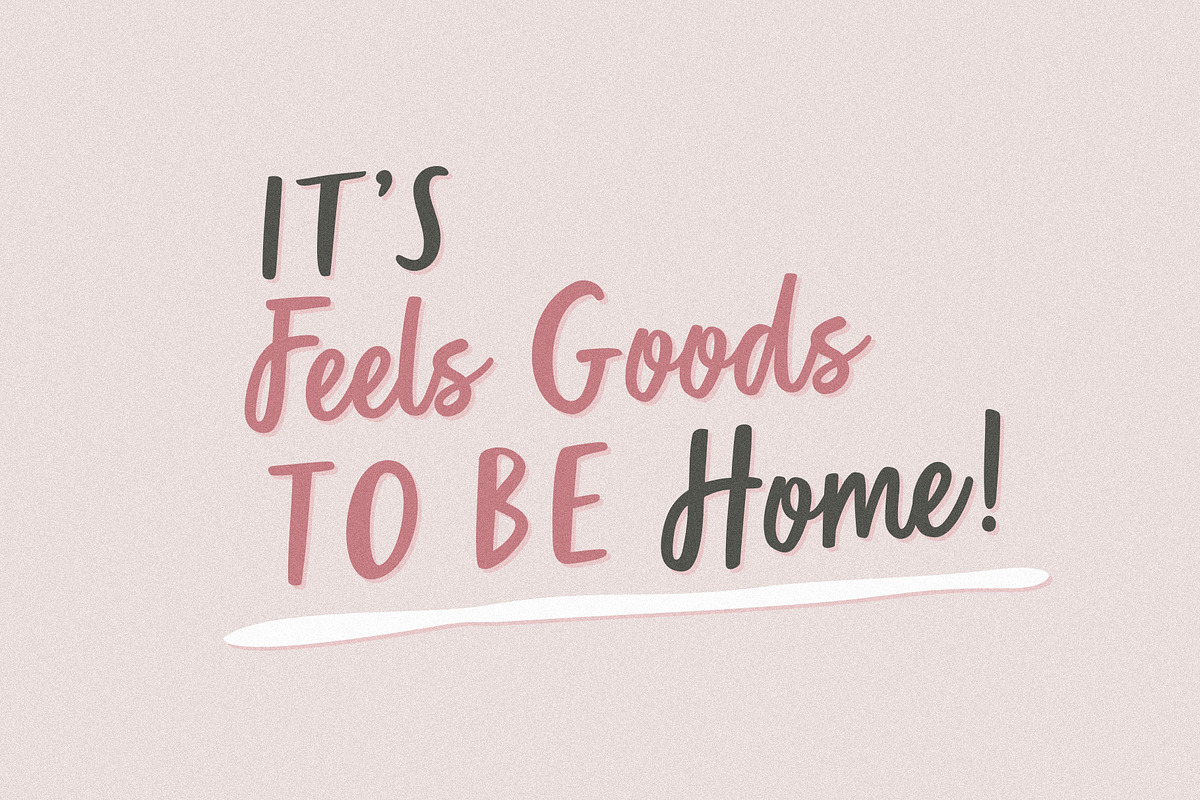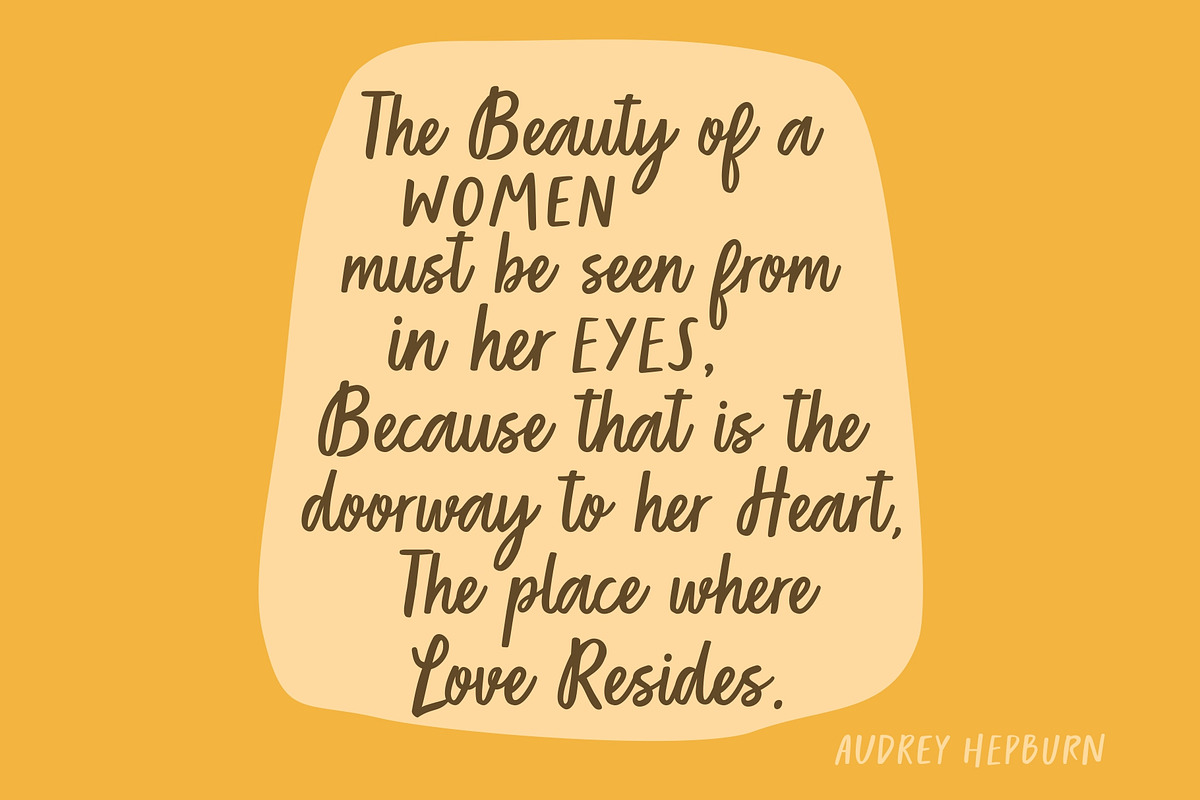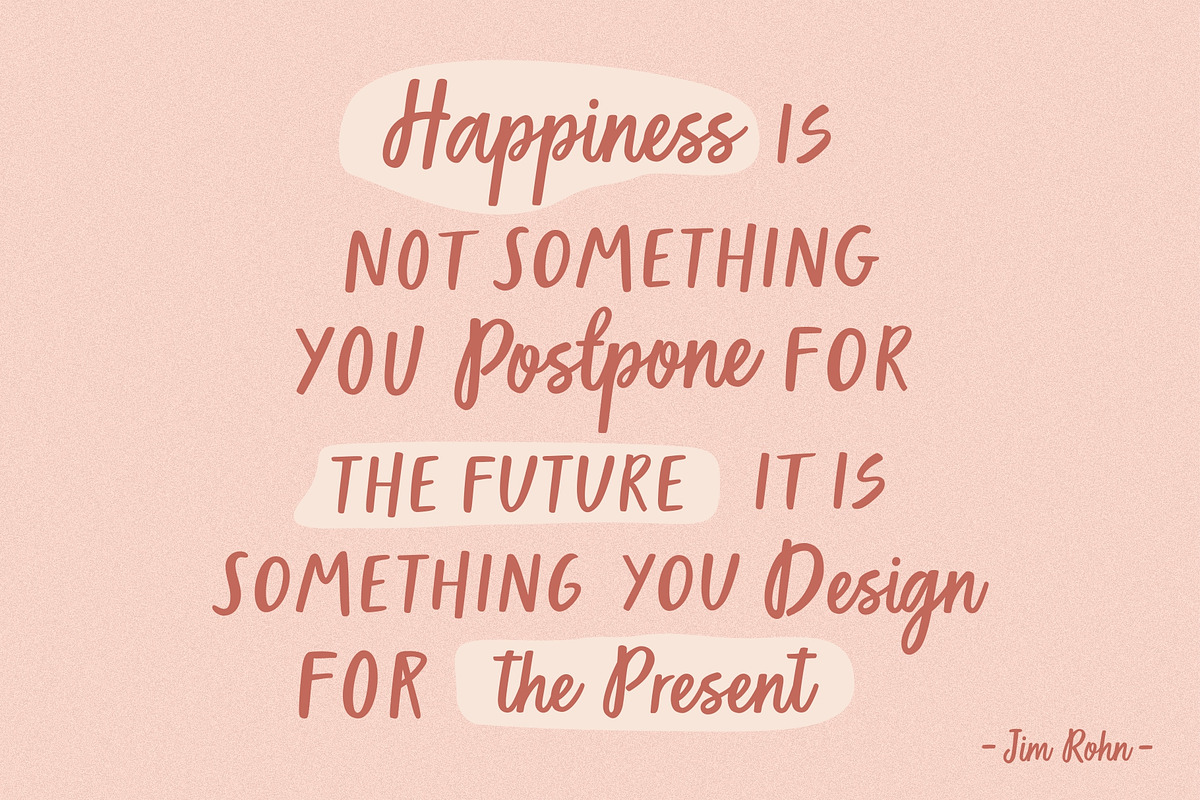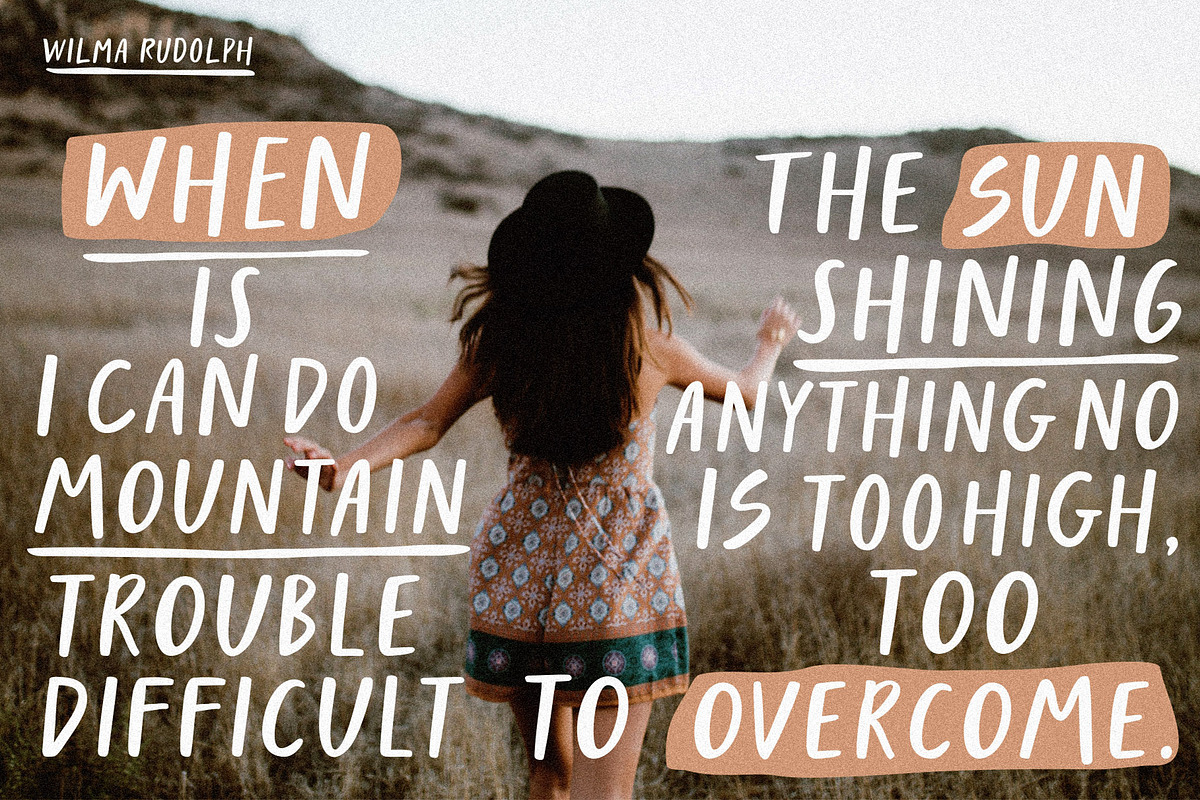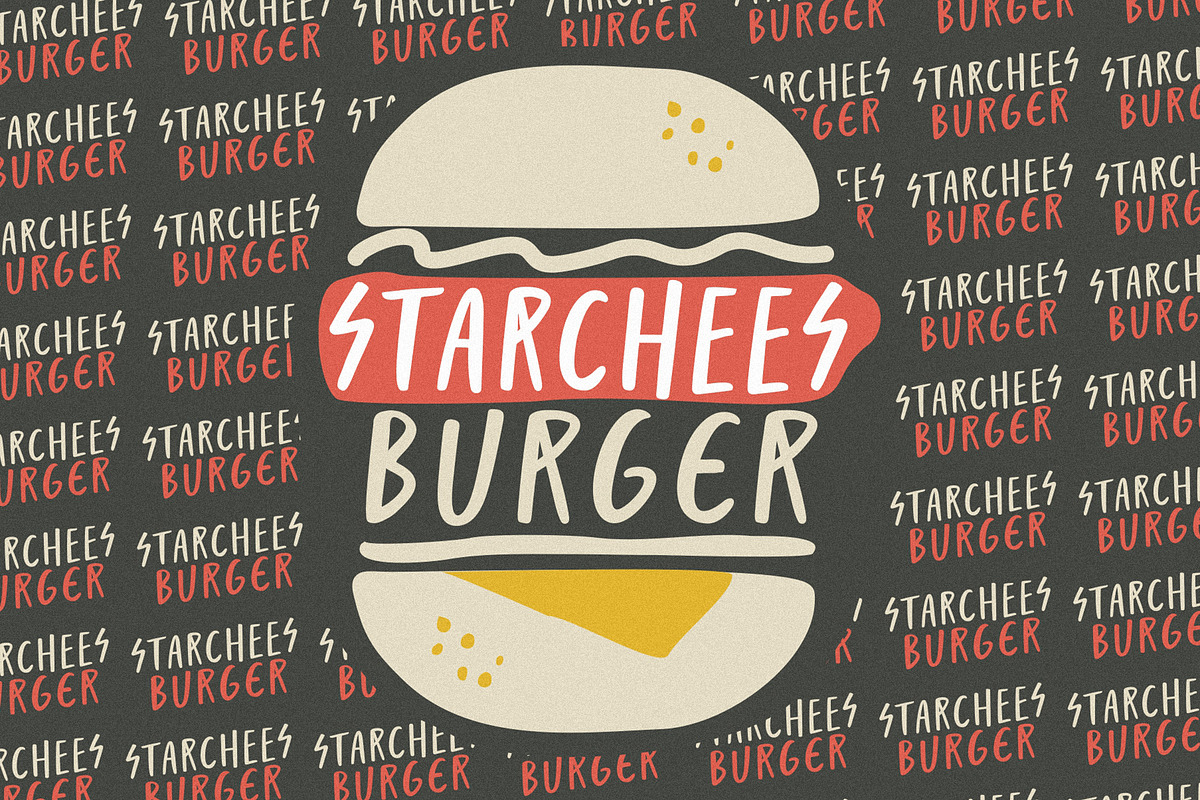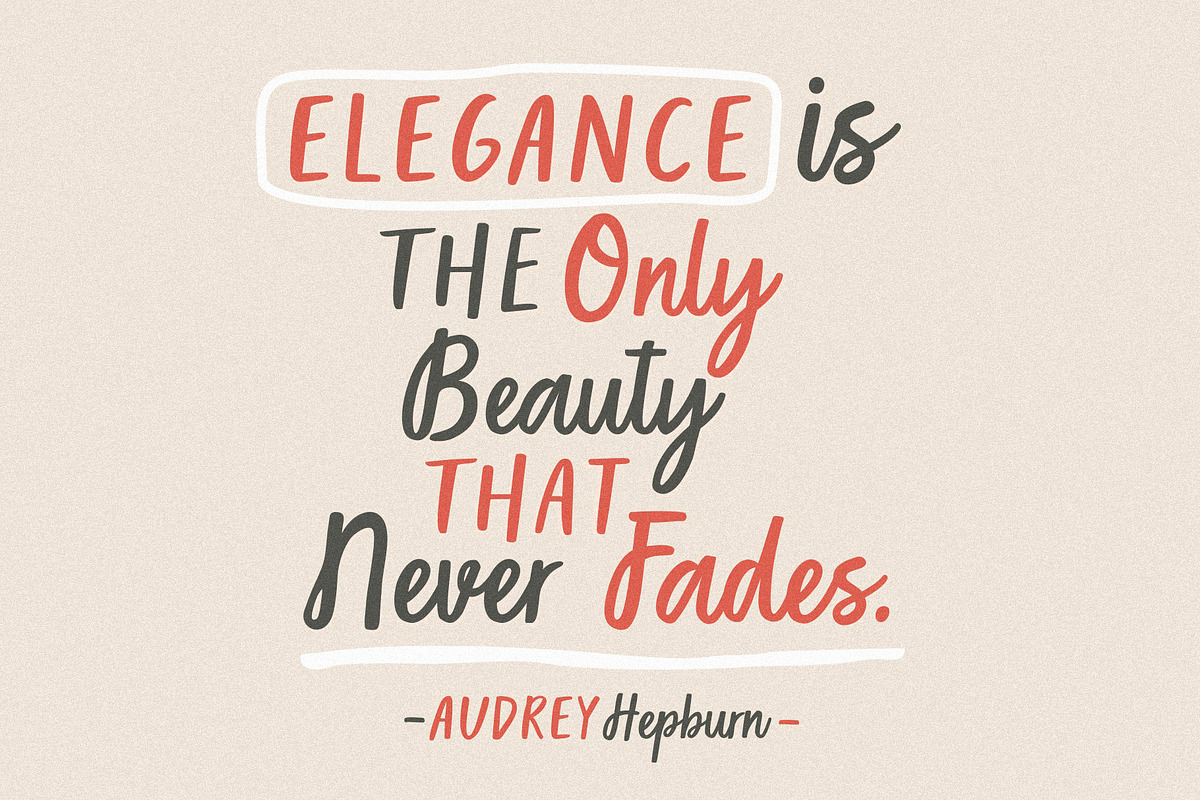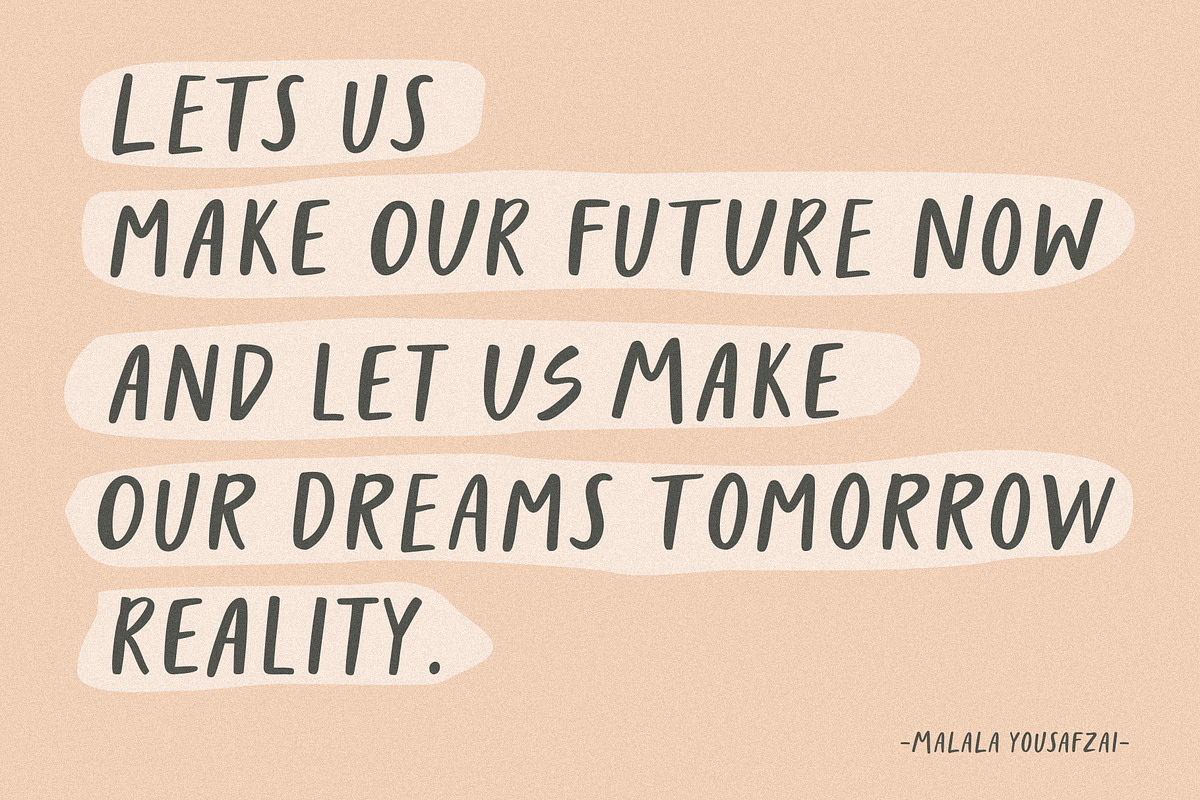
Homebreaks | Handwritten Font Duo
Homebreaks is a handwritten new font duo, with different style making beautifully looking font combinations to bring more fun to your projects!
perfect for creating inspirational quotes, posters, blog headers,logos, or just adding a hand-written touch to any project!